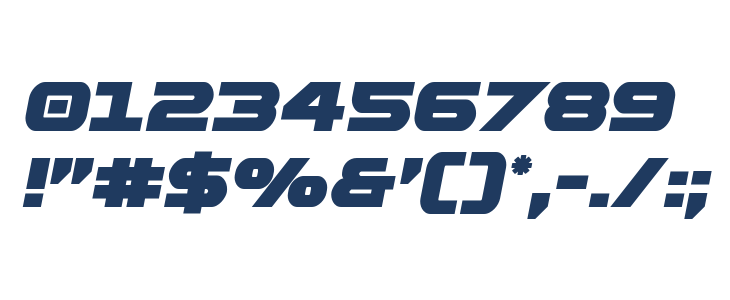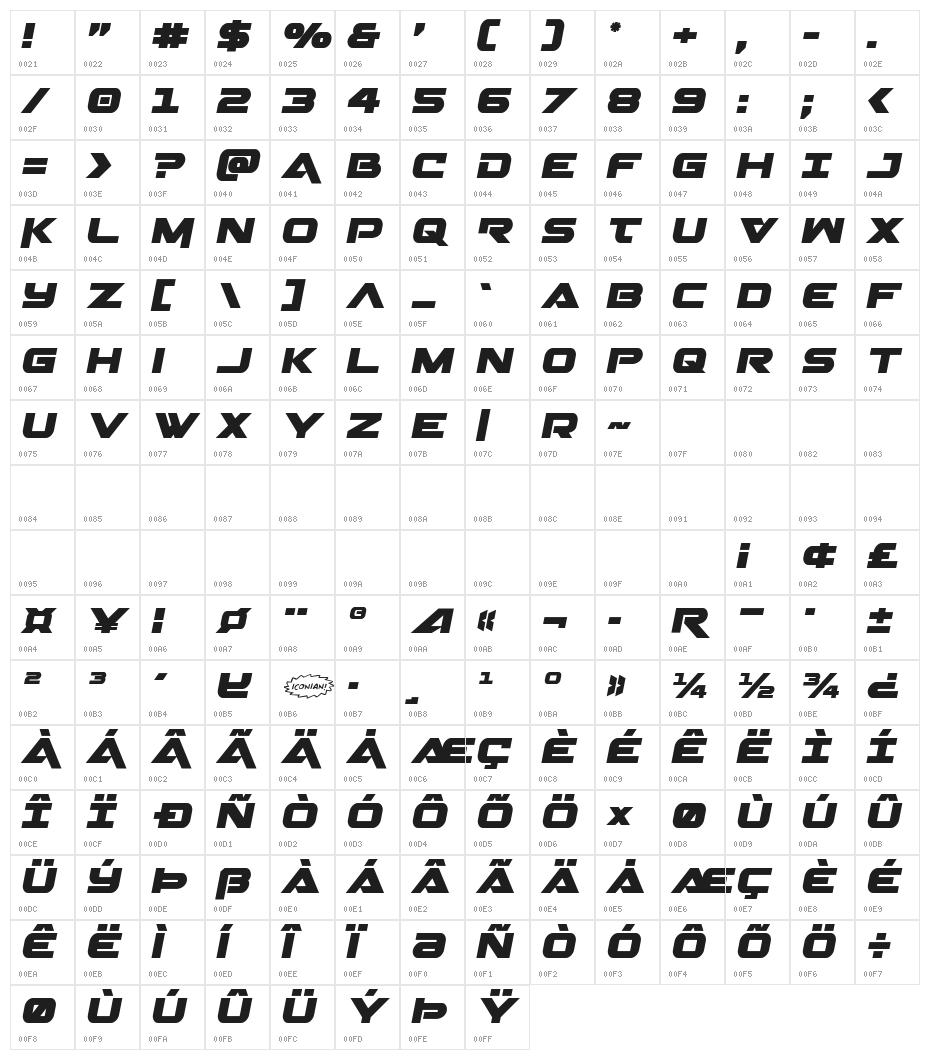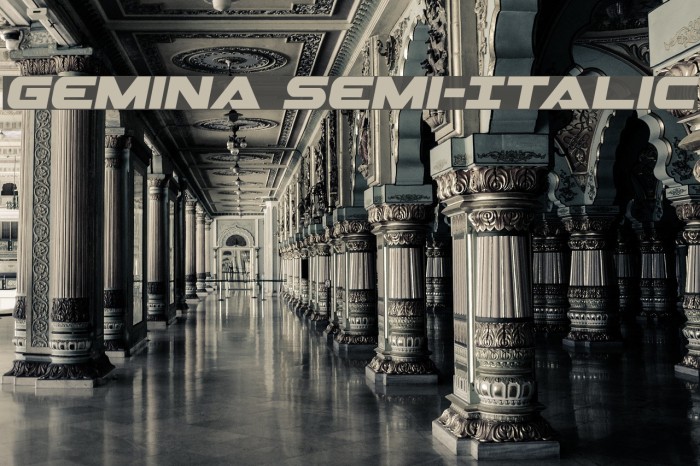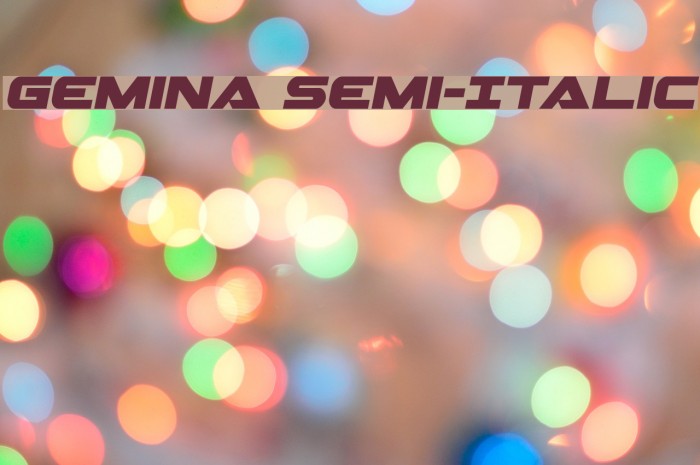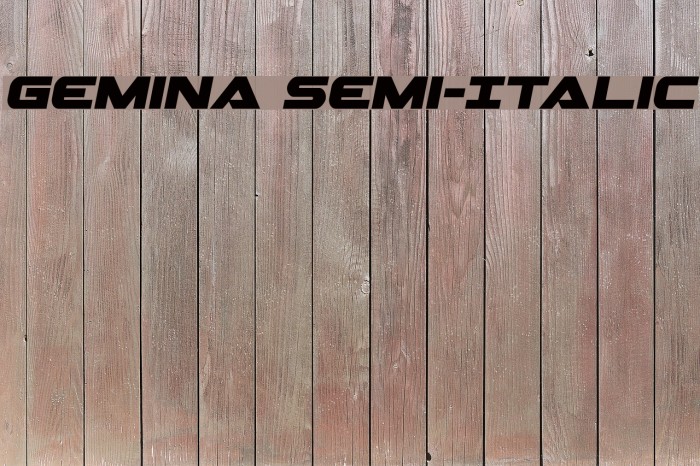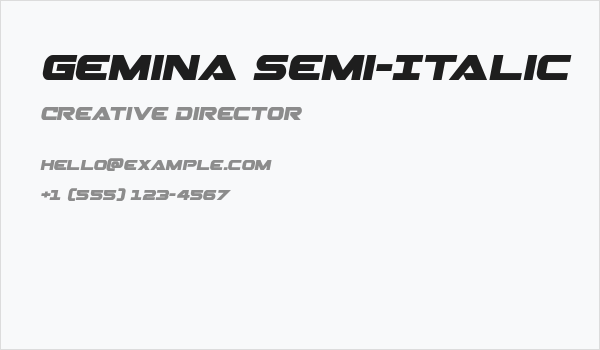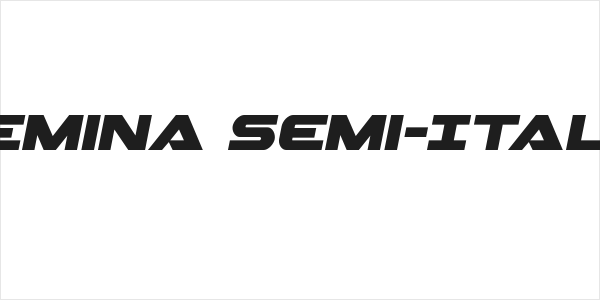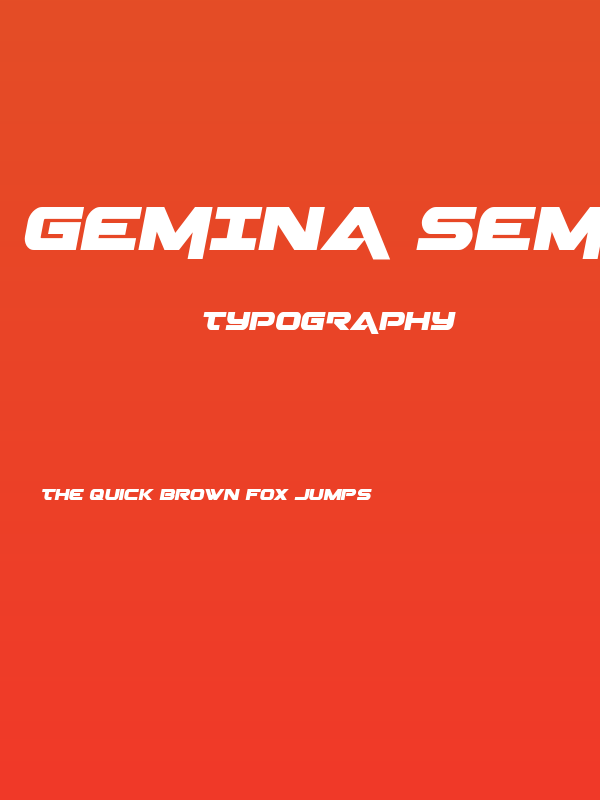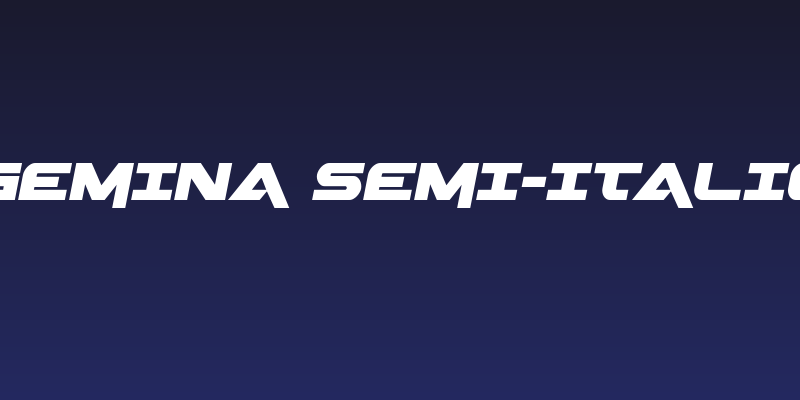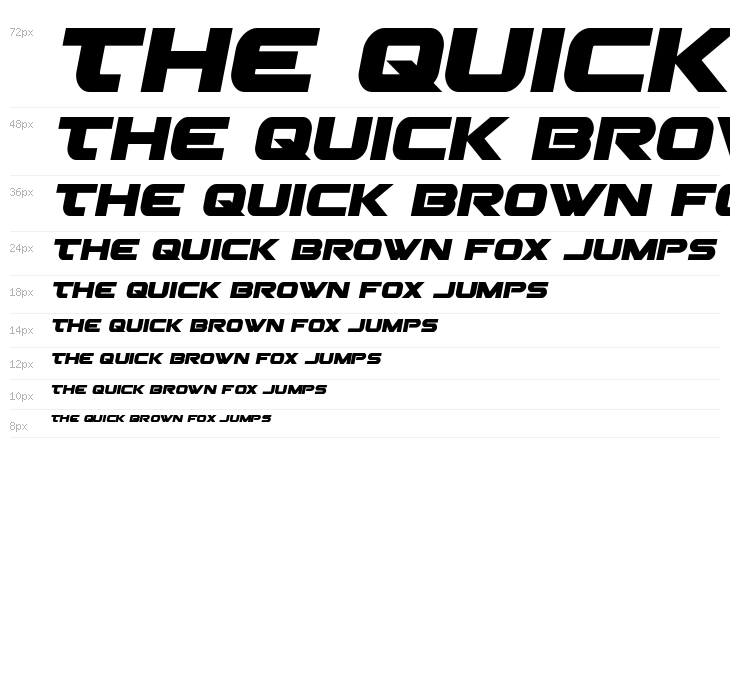
Gemina Semi-Italic Font
Gemina Semi-Italic Description
This font features a bold, dynamic style with a futuristic and angular design. The characters are slightly italicized, giving a sense of motion and energy. The strokes are thick and consistent, contributing to a strong visual impact. The uppercase and lowercase letters maintain a cohesive look, with sharp edges and a geometric structure. Numbers and special characters follow the same design principles, ensuring uniformity across all glyphs. This font is ideal for projects that require a modern and assertive appearance.
Proposed ProjectsIdeal for technology branding, sports team logos, video game titles, and modern advertising campaigns.